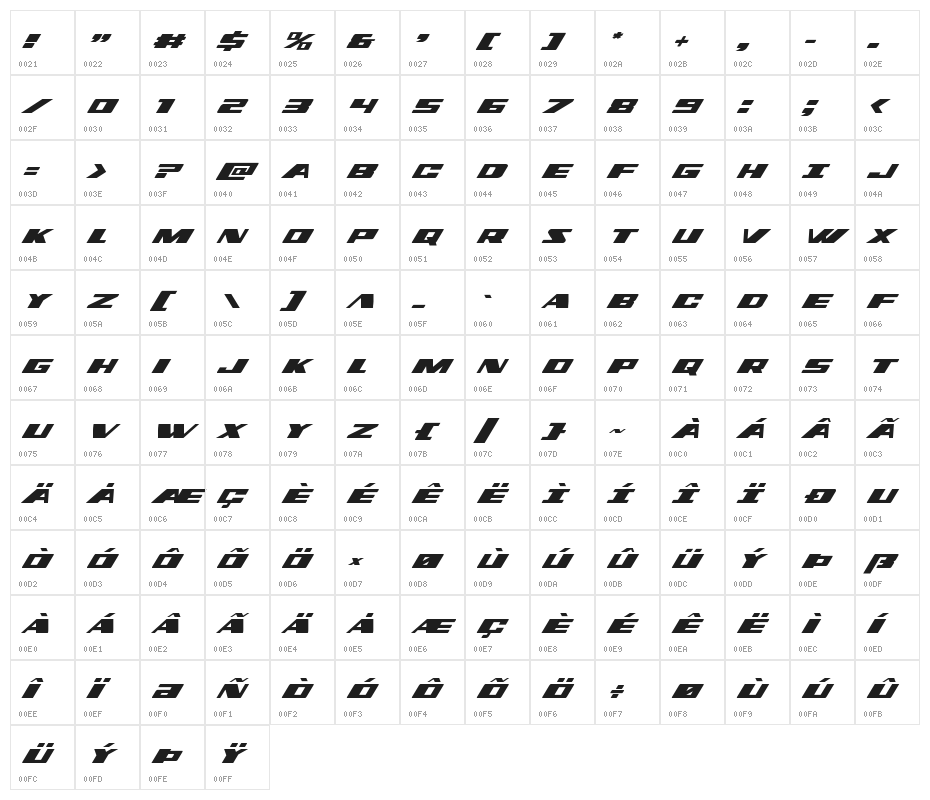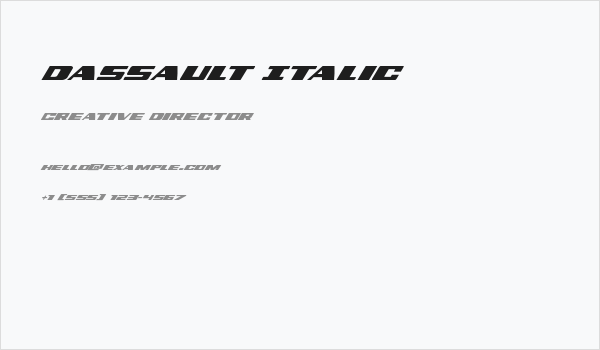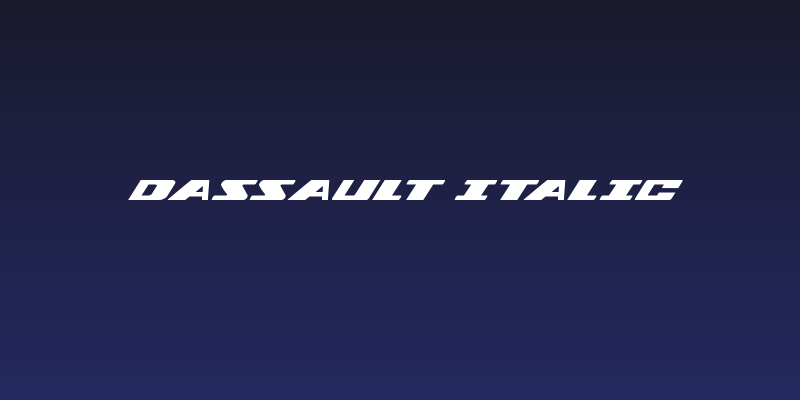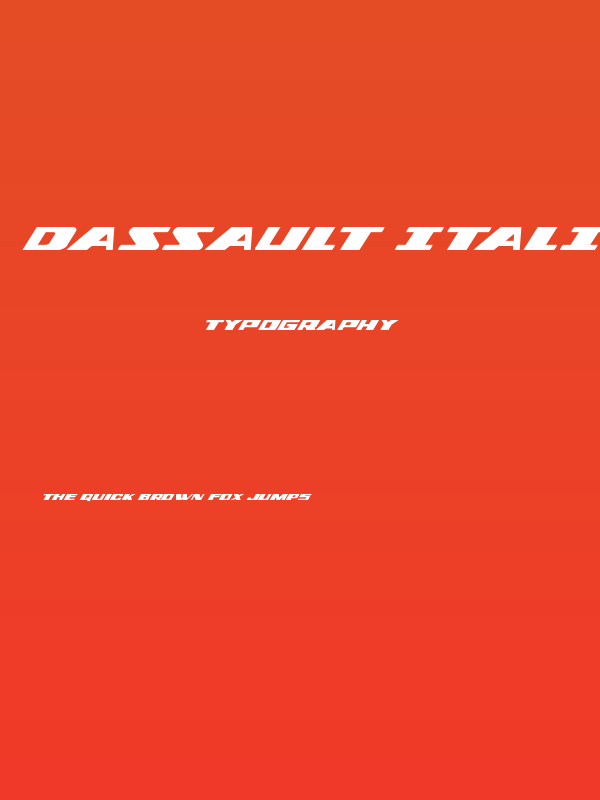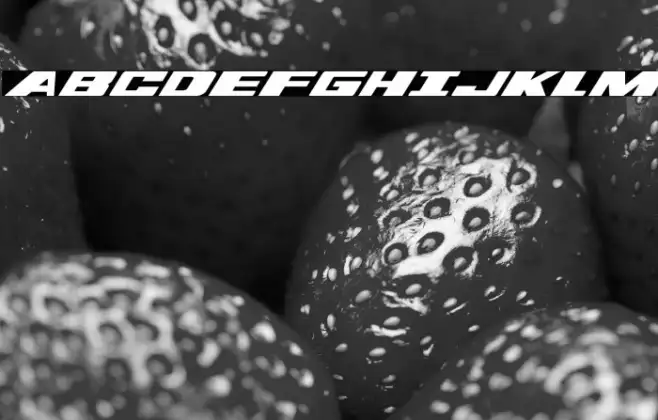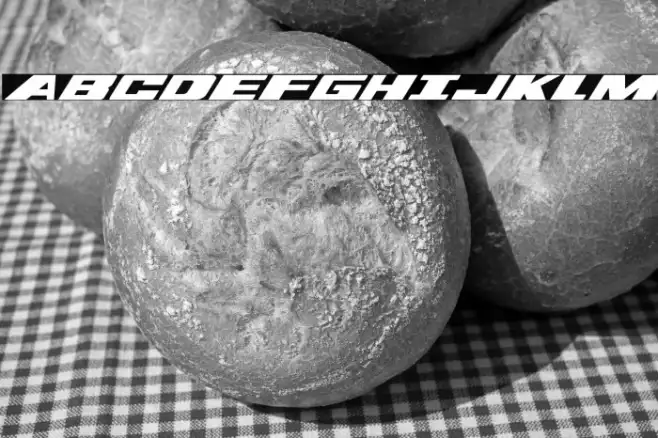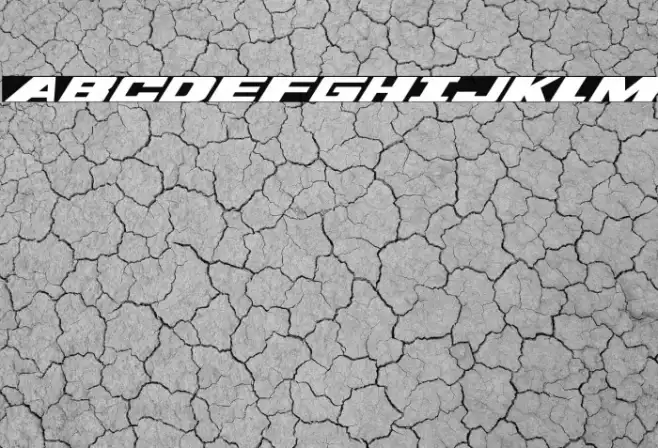
Dassault Italic Font
Dassault Italic Description
This font features a bold and dynamic italic style, characterized by its sharp angles and geometric shapes. The letters are slanted, giving a sense of motion and speed, which is further emphasized by the thick, consistent strokes. The uppercase and lowercase letters maintain a uniform appearance, with a futuristic and modern aesthetic. The numbers and special characters follow the same design principles, ensuring a cohesive look across all elements. The font's strong presence makes it suitable for attention-grabbing designs.
| Proposed Projects | Ideal for use in branding, sports team logos, automotive designs, and technology-related projects. |